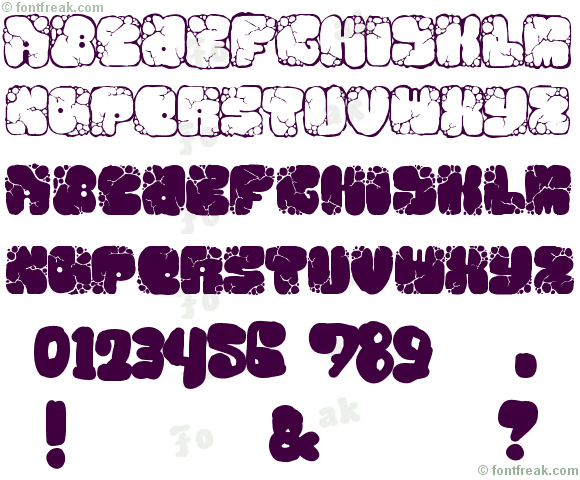
MAWNS rock
About MAWNS rock
MAWNS Rock is an eye-catching display font designed by Mans Greback, classified under decorative typefaces. This unique font boasts a playful and bold aesthetic, characterized by its irregular stroke weights and a cracked, organic appearance. The visual elements of the font showcase a combination of thick and thin lines, creating a sense of dynamism and movement that is both engaging and visually appealing. The spacious letterforms enhance readability while allowing for a creative flair that can elevate any design project.
This font is particularly well-suited for a variety of creative applications. It shines in contexts such as music festival posters, where its energetic style captures the spirit of lively events. Additionally, MAWNS Rock works wonderfully for branding in the fashion industry, giving logos a distinctive edge. It can also be utilized in vibrant restaurant menus, adding a fun and casual touch to dining experiences. For content creators, this font is ideal for social media graphics, making posts stand out with its unique character.
The target audience for MAWNS Rock includes graphic designers, small business owners, and content creators who seek to infuse personality into their projects. Its versatility makes it a go-to choice for anyone looking to express creativity and individuality.